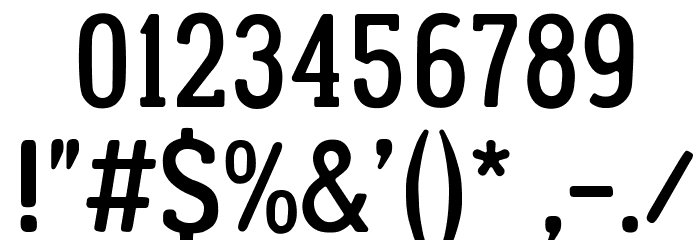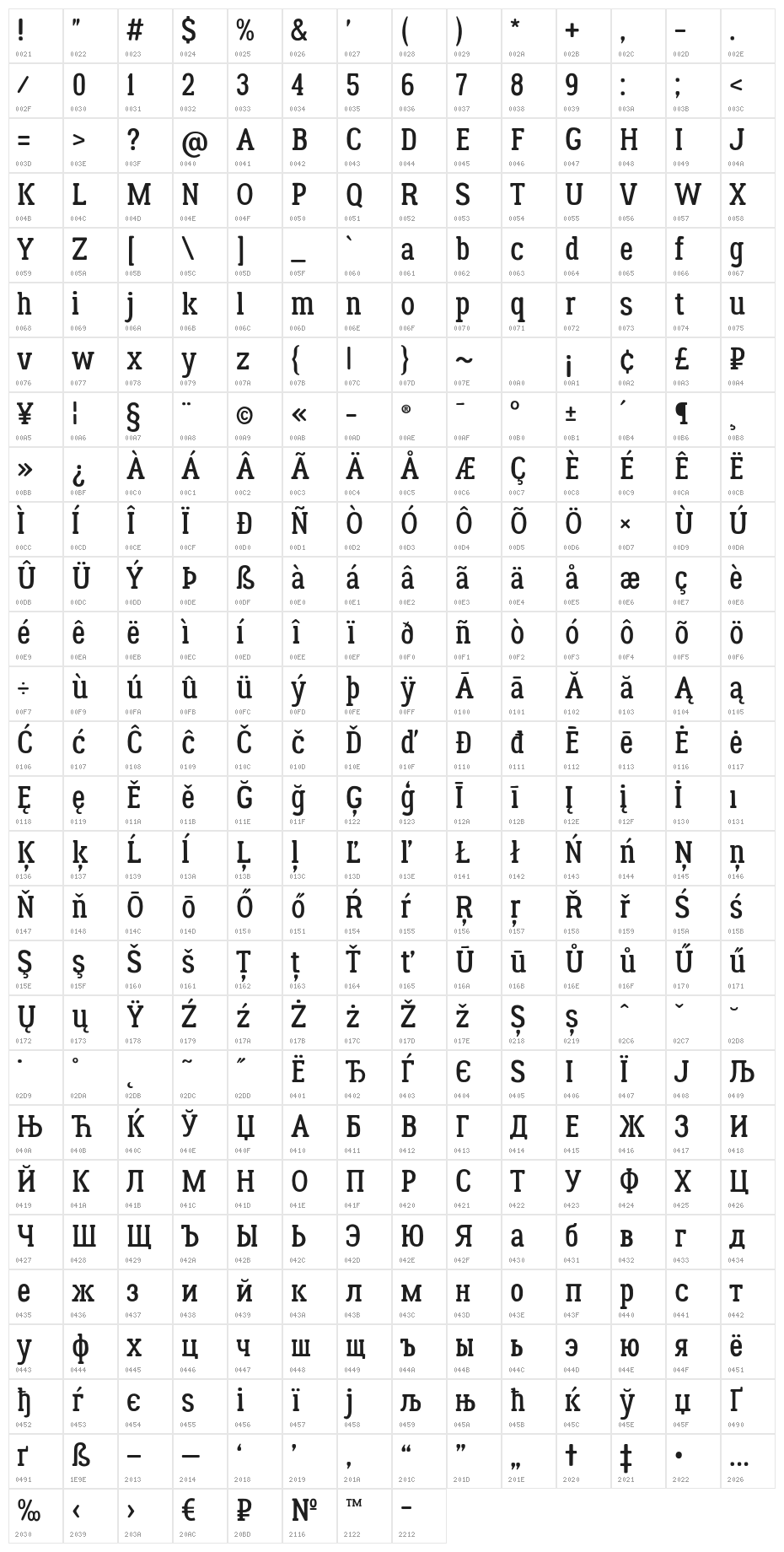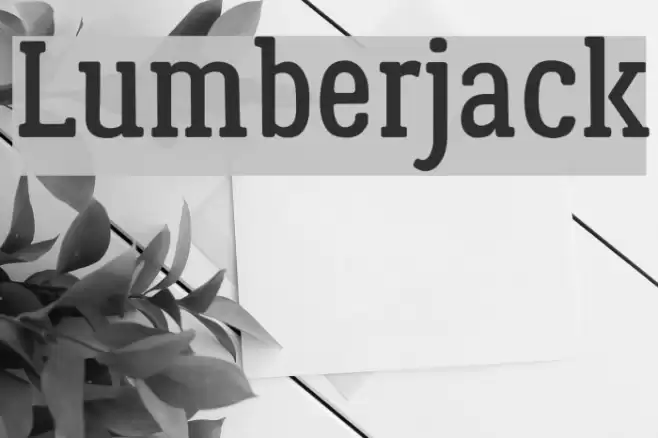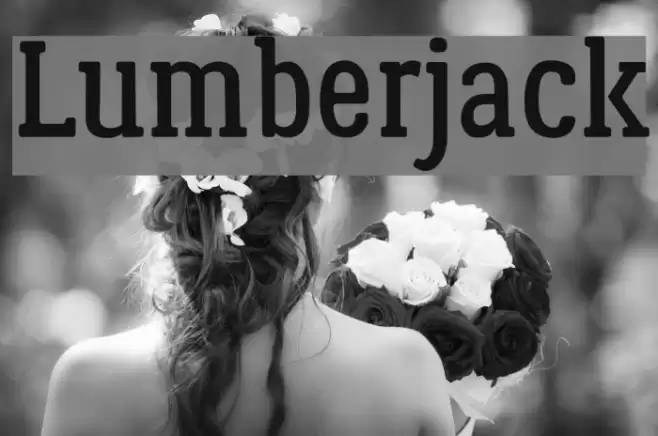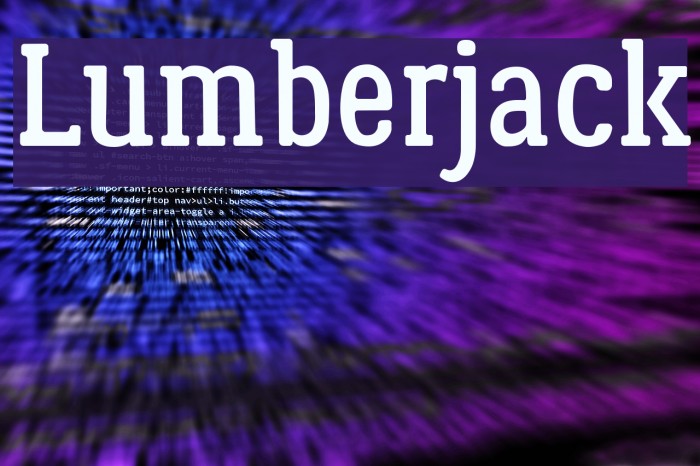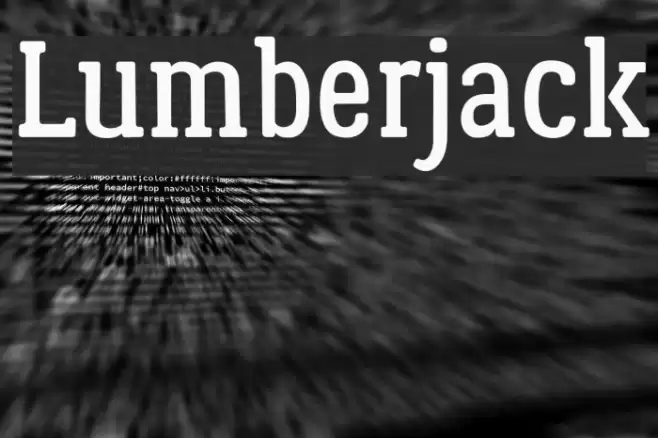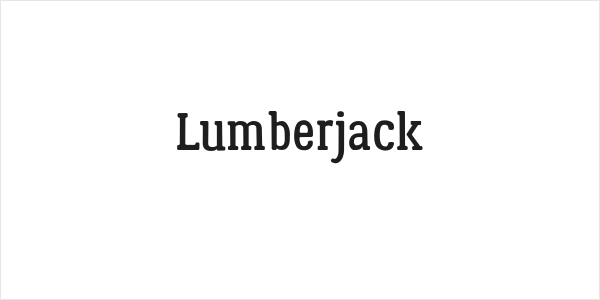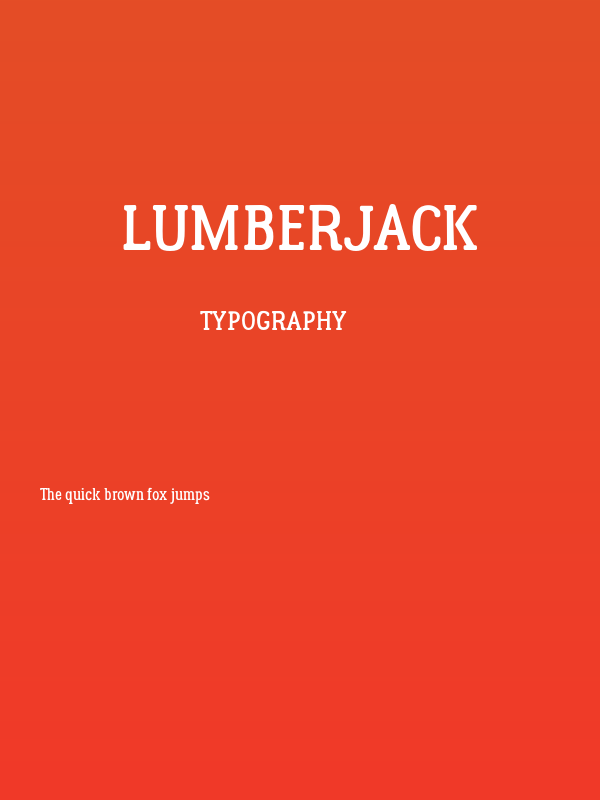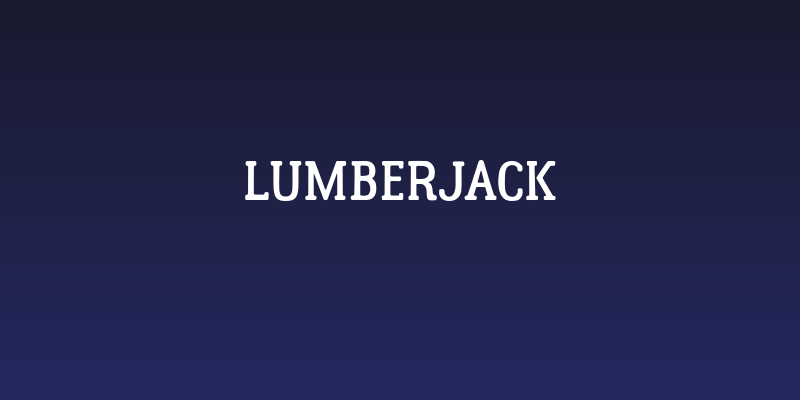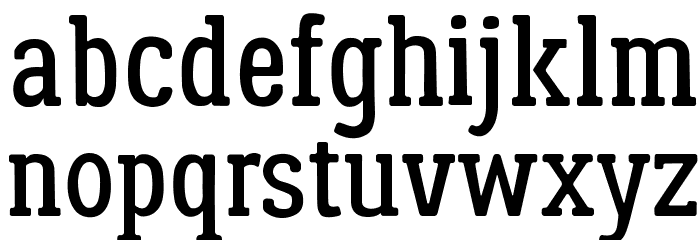
Lumberjack Font
Lumberjack Description
This font features a robust and sturdy design with a slab serif style, characterized by thick, block-like serifs. The letterforms are bold and confident, providing a strong visual impact. The uppercase and lowercase letters maintain a consistent weight, contributing to a cohesive appearance. The numerals are clear and easily distinguishable, making them suitable for various applications. Special characters are well-defined, enhancing the font's versatility. Overall, the font conveys a sense of reliability and strength, making it ideal for projects that require a bold and assertive typeface.